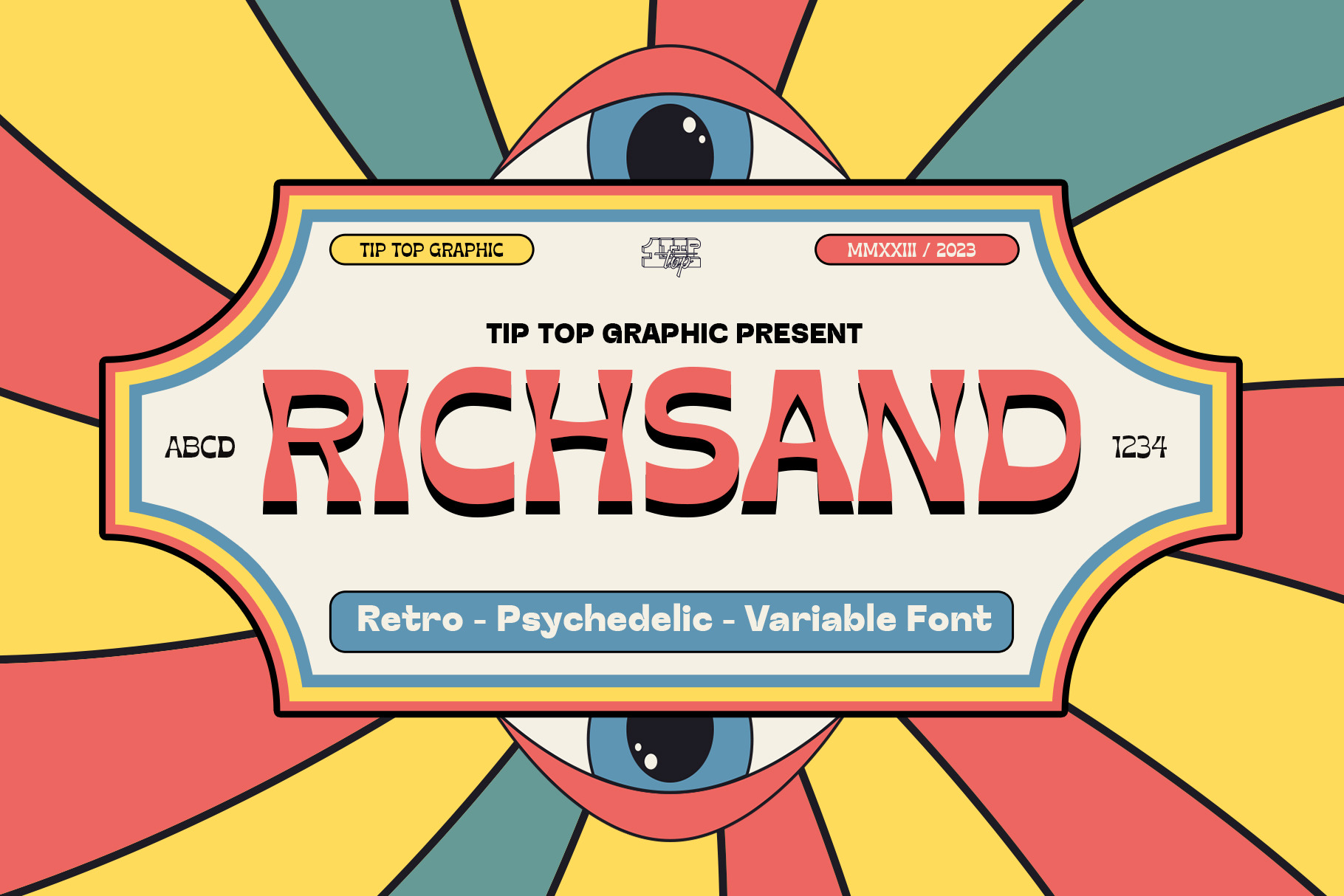
Richsand | Retro Psychedelic Font
Introducing Richsand, retro psychdelic font. Step into a mesmerizing world of visual and typographic exploration with the Psychedelic Font, an artistic expression that encapsulates the trippy, mind-bending aesthetics of the 1960s and 1970s.